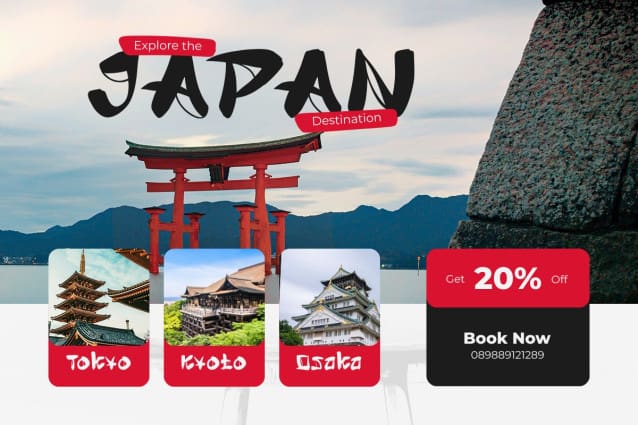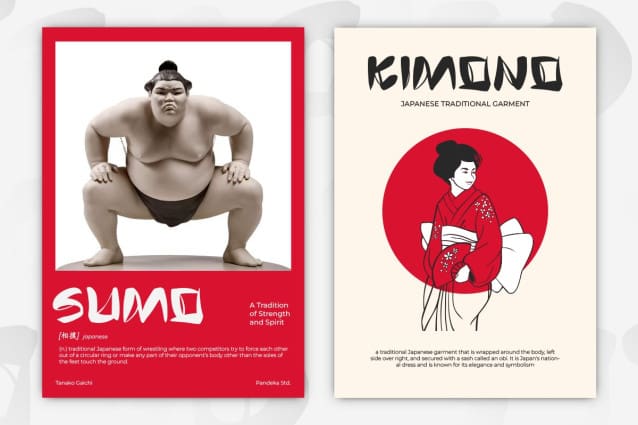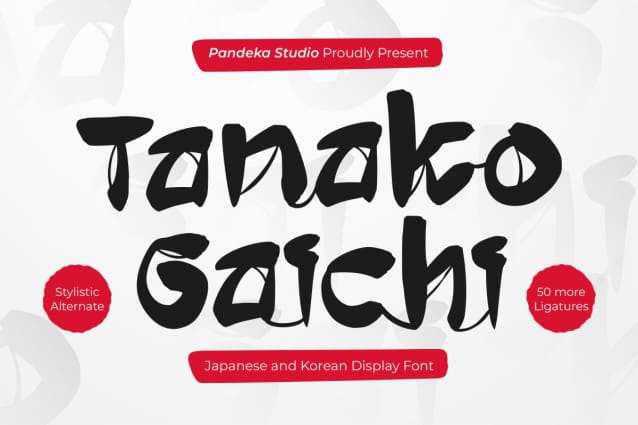
Tanako Gaichi Font
Tanako Gaichi is the perfect font to make your projects stand out! With its sleek and modern style, it’s ideal for branding, posters, social media, and any creative work related to Japanese restaurants, samurai themes, Japanese logos, Korean products, or cultural events. Plus, with 50+ ligatures, your text will always look unique and captivating!